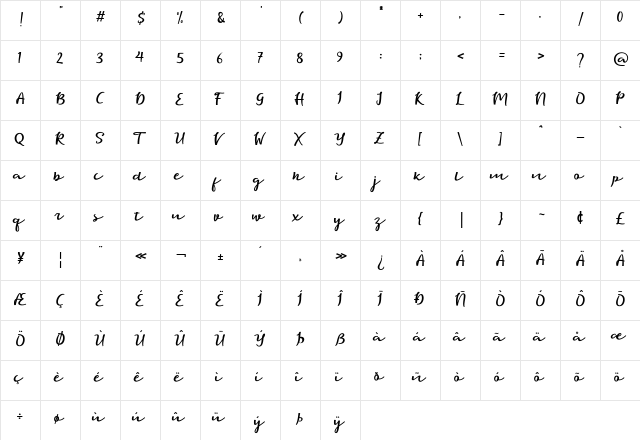
eagle script
| Style | script |
| Foundry | bestfontstudio |
| Designer | rifan asri |
Design Context for eagle Typeface
eagle brings a calligraphic fluidity to the page — its connecting strokes and expressive curves give it an unmistakably human quality.